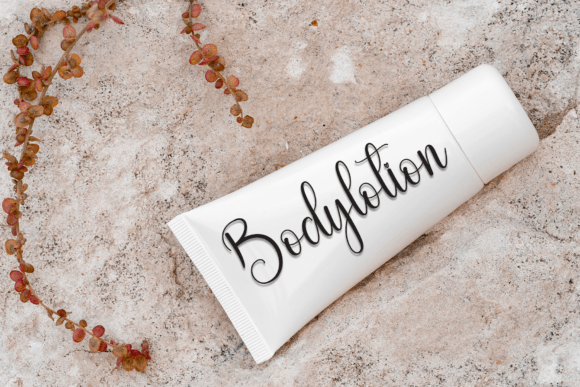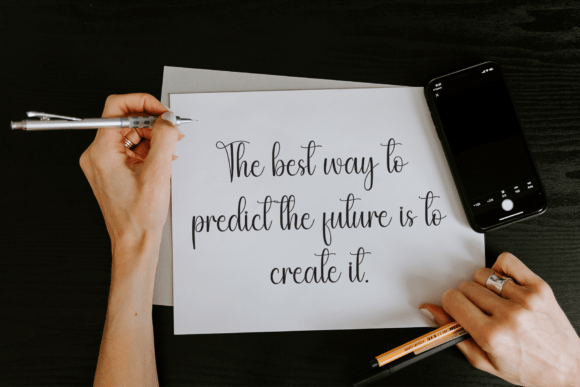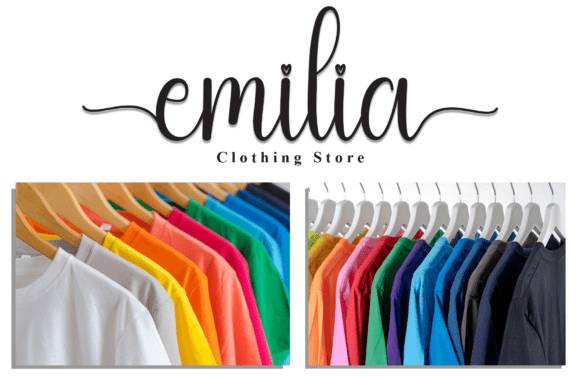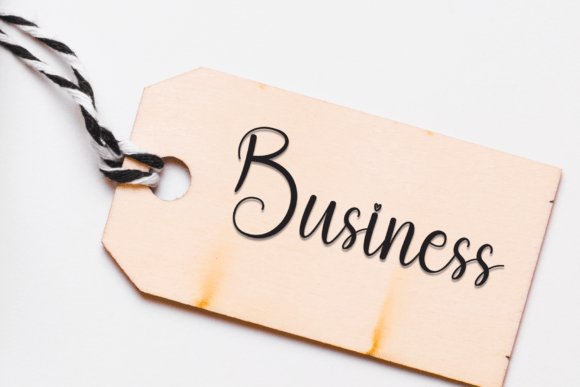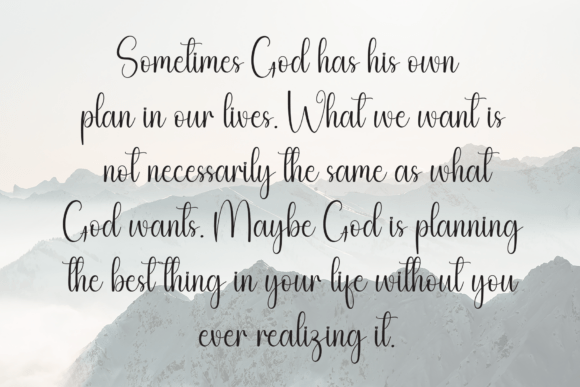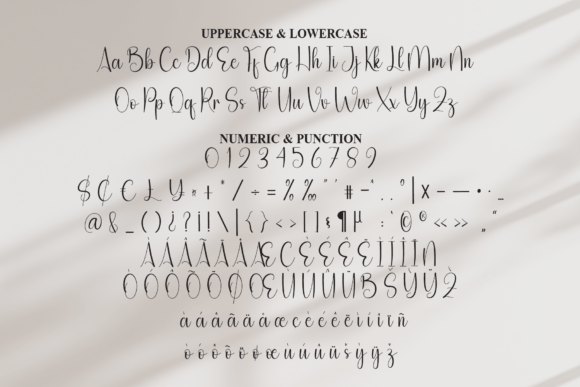
Introducing Escape Font: Elevate Your Designs with Elegance and Modern Flair
In the world of typography, few fonts manage to strike a balance between elegance and modernity as effortlessly as Escape Font. This stylish handwritten script font is designed to bring a touch of sophistication and warmth to any project, making it an ideal choice for designers and crafters looking to add a personal, refined touch to their work.
The Characteristics of Escape Font
Escape Font is characterized by its flowing strokes and organic curves, which give it a unique and charming appearance. The font’s design combines the elegance of traditional script typography with a modern flair, making it versatile enough to be used in a variety of contexts. Whether you’re working on a branding project, creating invitations, or developing a social media campaign, Escape Font is sure to make a lasting impression.
Why Choose Escape Font?
There are several reasons why Escape Font stands out from the crowd:
- Elegance and Sophistication: Escape Font’s refined and polished appearance makes it perfect for projects that require a touch of luxury and sophistication.
- Versatility: The font’s modern design ensures that it can be used in a variety of contexts, from traditional print materials to digital platforms.
- Personal Touch: The handwritten nature of Escape Font adds a personal touch to any project, making it ideal for designers and crafters who want to create unique and memorable designs.
- Effortless Charm: The font’s flowing strokes and organic curves give it a charming and effortless appearance that is sure to captivate audiences.
Using Escape Font in Your Designs
Escape Font is incredibly versatile and can be used in a variety of design contexts. Here are a few ideas to get you started:
- Branding: Use Escape Font to create a sophisticated and elegant brand identity that sets your business apart from the competition.
- Invitations: Add a touch of luxury and refinement to your invitations with Escape Font, making them perfect for weddings, parties, and other special occasions.
- Social Media: Use Escape Font to create eye-catching social media graphics that showcase your brand’s personality and style.
- Packaging: Add a personal touch to your product packaging with Escape Font, making it stand out on store shelves.
Tips for Working with Escape Font
To get the most out of Escape Font, here are a few tips to keep in mind:
- Pair it with a sans-serif font: Escape Font pairs beautifully with sans-serif fonts, creating a striking contrast that adds visual interest to your designs.
- Experiment with colors: The font’s elegant design looks great in a variety of colors, so don’t be afraid to experiment and find the perfect hue for your project.
- Use it sparingly: While Escape Font is incredibly versatile, it’s best used sparingly to avoid overwhelming your design. Use it to highlight key information or add a touch of elegance to your layout.
Escape Font is a stylish and sophisticated handwritten script font that is sure to elevate your designs to the next level. Its elegant design, versatility, and personal touch make it an ideal choice for designers and crafters looking to add a refined touch to their work. Whether you’re working on a branding project, creating invitations, or developing a social media campaign, Escape Font is the perfect choice for anyone looking to make a lasting impression.